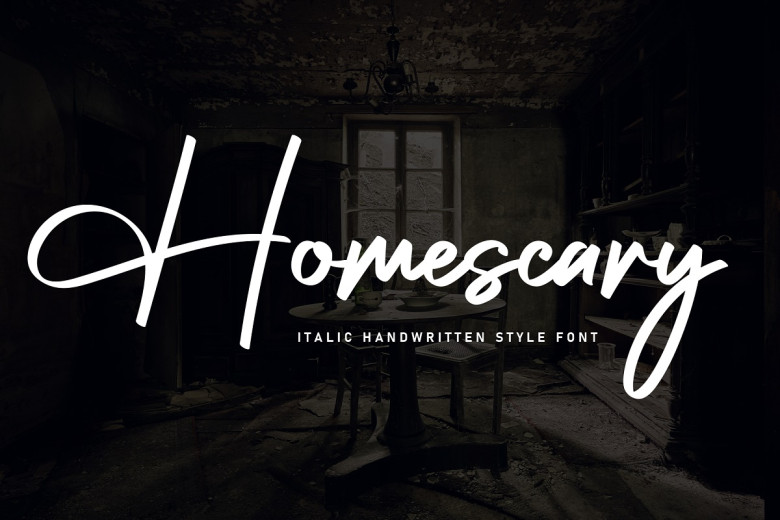
Homescary Font
Homescary is an endearing and welcoming handmade signature font with its charming design that stands out among a range of styles. Your creativity is the limit with this one!
Homescary Handwritten Script Font